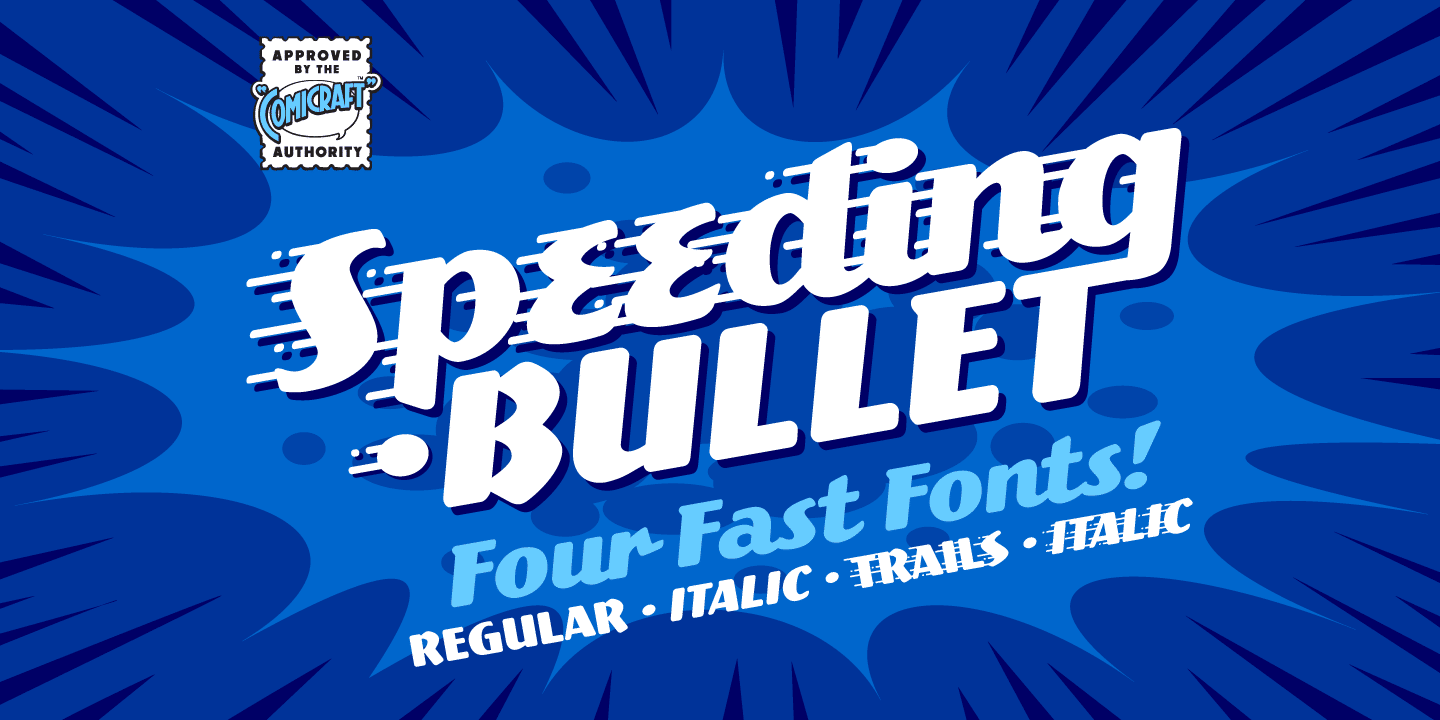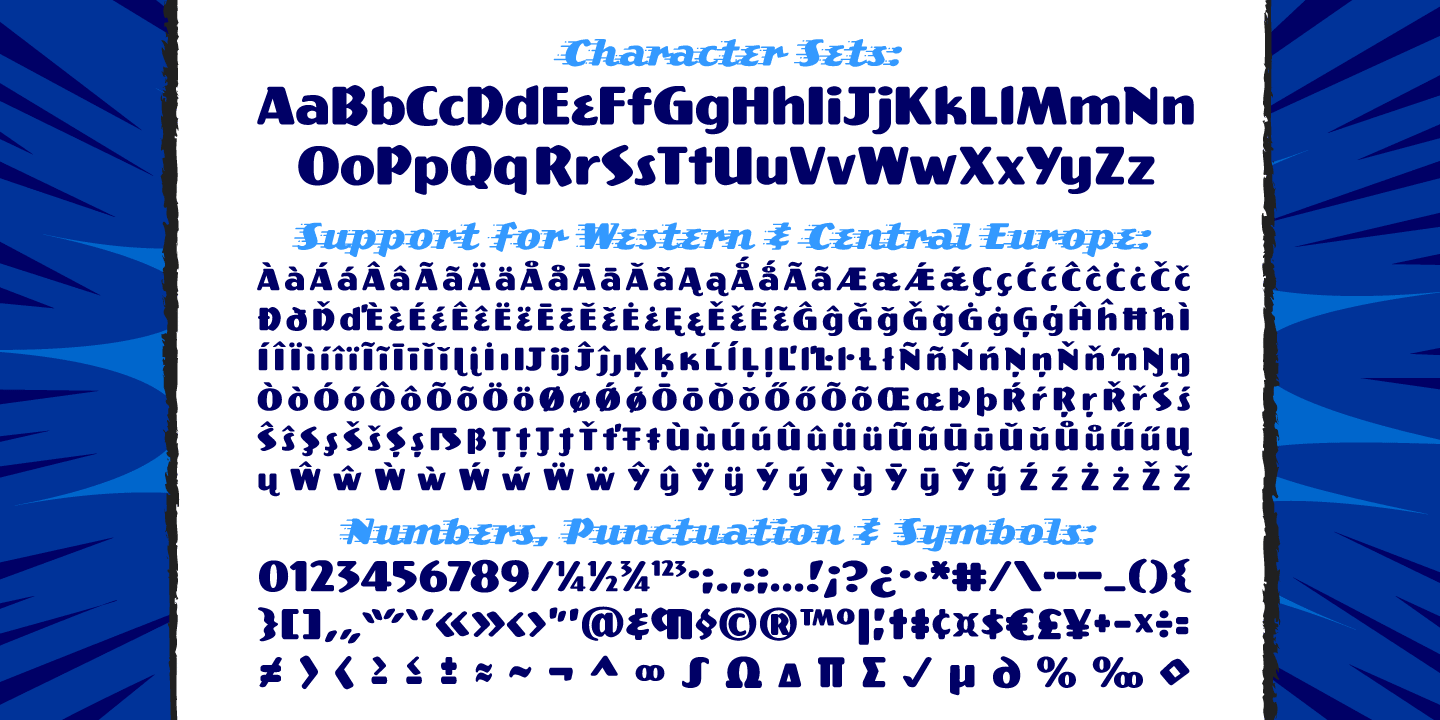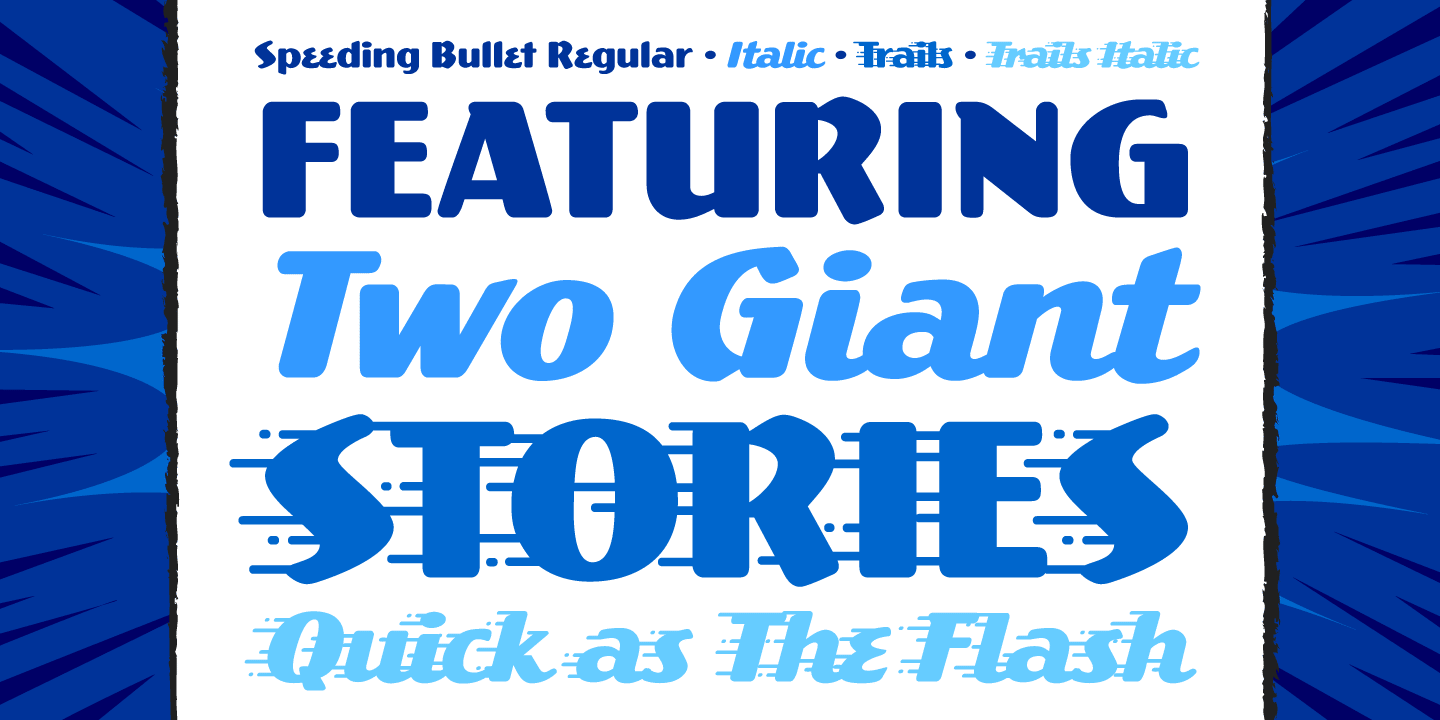
Speeding Bullet
Font Family by Comicraft Fonts
Introducing... SPEEDING BULLET -- featuring SPEED TRAILS for increasing the, ah, speed of your bullets! Quick as The Flash, slicker than Quicksilver, the latest in our popular line of silver age display fonts could probably outrun a locomotive AND jump buildings in a single bound. It's ASTOUNDING, it's STARTLING, it's ELECTRIFYING, PERAMBULATING, DISCOMBOBULATING and RETROFITTING. It really is Faster than a Speeding Bullet. Try it out for yourself. Under adult supervision, natch'.